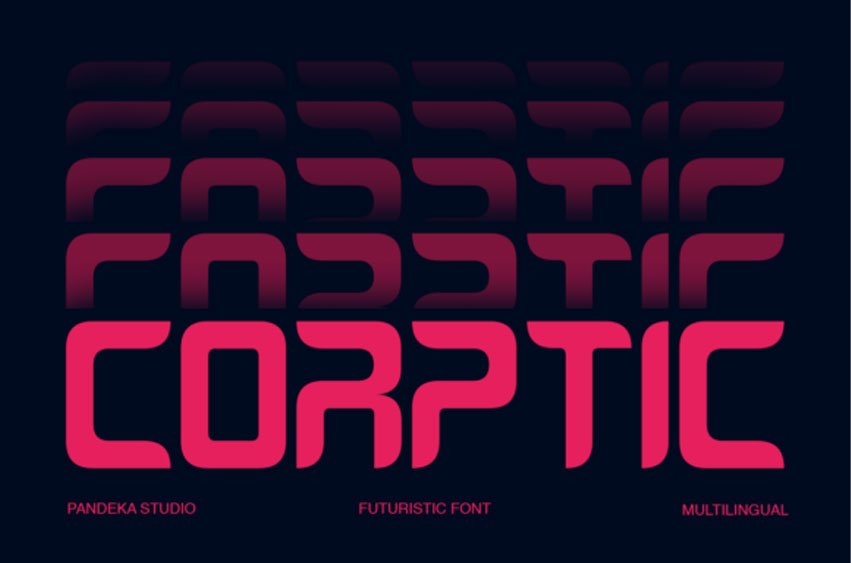
Corptic Font is a futuristic display font born from the fusion of sci-fi aesthetics, digital interfaces, and boundary-pushing design. With its smooth curves and modular letterforms, Corptic delivers a clean, bold, and tech-forward vibe that instantly modernizes any creative project.
Designed for innovation-driven visuals, Corptic is a standout choice for UI/UX design, futuristic posters, cyberpunk branding, digital startups, and anything that demands sleek, cutting-edge type. While it comes in a single style—Regular—its presence is anything but ordinary. The font includes uppercase and lowercase letters, numbers, symbols, punctuation, and multilingual support, making it highly versatile for global and multilingual usage.
Whether you’re crafting next-gen branding or digital interfaces, Corptic balances unique form and functional clarity, injecting every layout with a distinctive, bold identity.